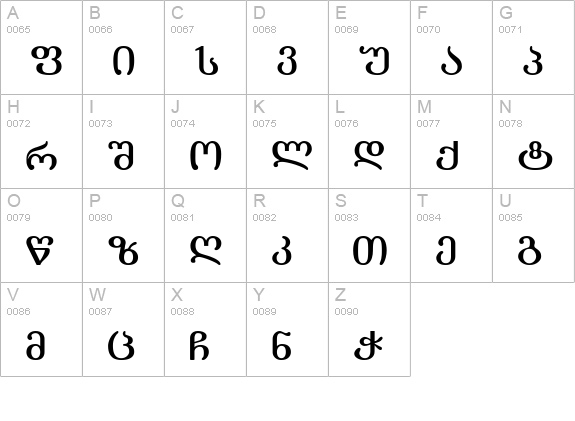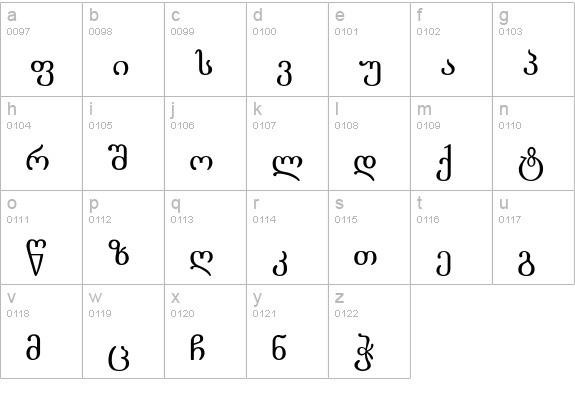
Literaturuly-ITV Font Details
Introducing the stunning Literaturuly-ITV font, a modern and versatile typeface that is sure to elevate your design projects to new heights. This elegant font exudes sophistication and style, making it perfect for a wide range of applications, from branding and advertising to web design and print materials. The unique design of Literaturuly-ITV font combines classic elements with a contemporary twist, resulting in a timeless and eye-catching appearance. Its clean lines and balanced proportions make it easy to read and ideal for both headings and body text. The best part? Literaturuly-ITV font is completely free to download at FontsMarket.com! This means you can enhance your work with this exceptional font without breaking the bank. Don't miss out on the opportunity to add a touch of elegance to your projects with Literaturuly-ITV font today.